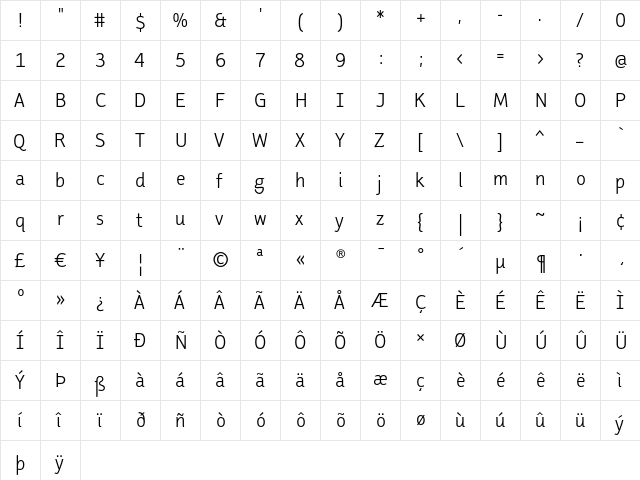
FaceplateSans OT AGauge
| Foundry | RXC, PSY/OPS |
| Designer | RXC, PSY/OPS |
Design Context for FaceplateSans OT Typeface
FaceplateSans OT is a composed and adaptable typeface that performs quietly and consistently across a wide range of design contexts.